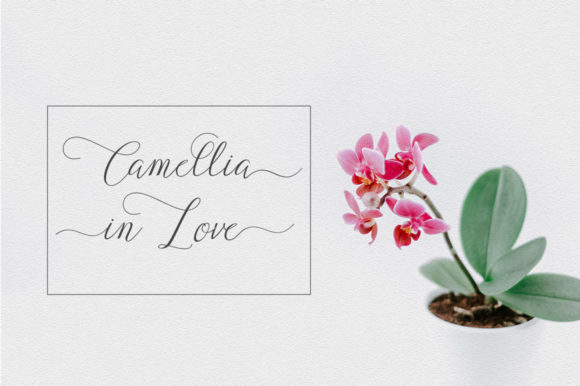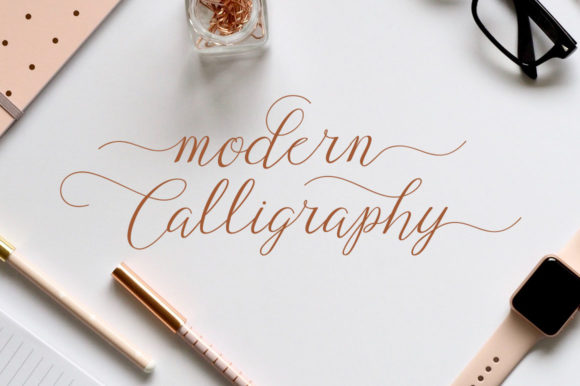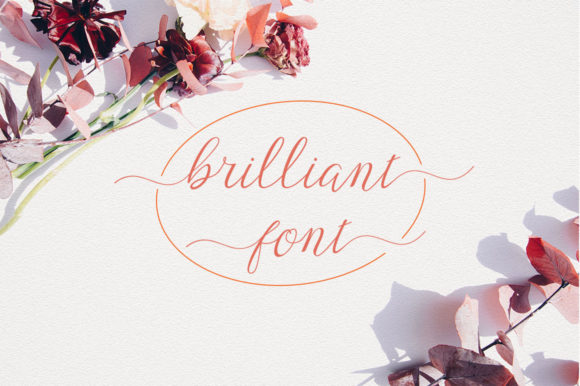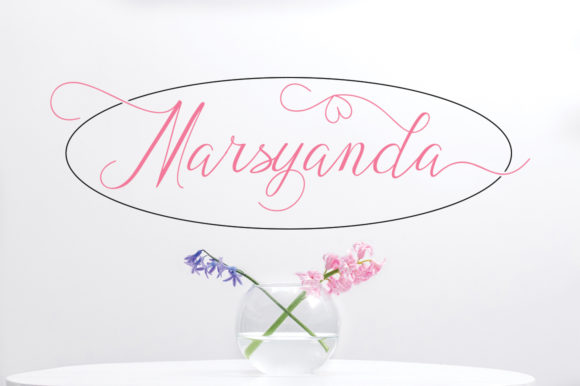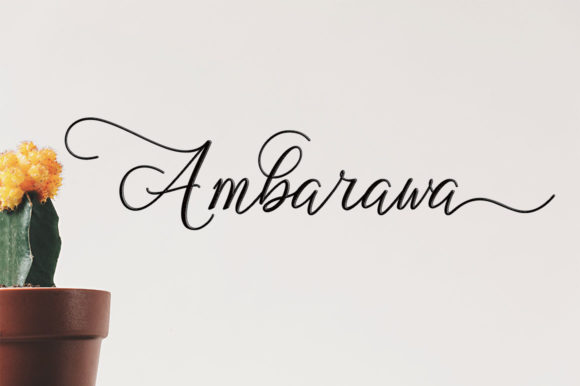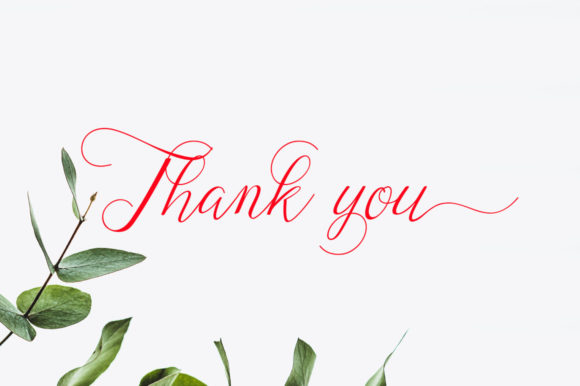
Discover the Charm of Brigadil Font: A Handwritten Masterpiece
Are you a designer or crafter looking for a unique and captivating font to elevate your creative projects? Look no further than Brigadil Font, a stunning and breathtaking handwritten font that exudes romantic charm. In this article, we’ll dive into the world of Brigadil Font, exploring its features, benefits, and uses, and why it’s a must-have for any creative enthusiast.
The Story Behind Brigadil Font
Brigadil Font is a carefully crafted handwritten font, designed to capture the essence of elegance and sophistication. Its unique touch sets it apart from other fonts, making it perfect for projects that require a personal and distinctive feel. Whether you’re working on a branding project, crafting a beautiful wedding invitation, or creating a captivating social media post, Brigadil Font is sure to make a lasting impression.
Key Features of Brigadil Font
- Handwritten with love: Brigadil Font is meticulously handwritten, giving it a personal and organic feel that’s hard to replicate with generic fonts.
- Unique touch: The font’s distinctive style sets it apart from other handwritten fonts, making it perfect for designers and crafters who want to stand out.
- Romantic charm: Brigadil Font exudes a sense of romance and elegance, making it ideal for projects that require a touch of sophistication.
- Versatile: This font can be used for a wide range of projects, from digital designs to print materials, and everything in between.
Benefits of Using Brigadil Font
So, why should you choose Brigadil Font for your next project? Here are just a few benefits of using this stunning font:
- Adds a personal touch: Brigadil Font’s handwritten style gives your projects a personal and human touch, setting them apart from generic designs.
- Enhances creativity: The font’s unique style and romantic charm can inspire creativity and help you think outside the box.
- Perfect for branding: Brigadil Font can help you establish a distinctive brand identity that resonates with your audience.
Uses of Brigadil Font
Brigadil Font is a versatile font that can be used for a wide range of projects, including:
- Wedding invitations and stationery: The font’s romantic charm makes it perfect for wedding-related projects.
- Branding and packaging: Brigadil Font can help you create a distinctive brand identity that stands out.
- Social media graphics: The font’s unique style makes it ideal for creating captivating social media graphics.
- Digital designs: Brigadil Font can be used for a variety of digital designs, from website headers to email newsletters.
In conclusion, Brigadil Font is a stunning and breathtaking handwritten font that offers a unique touch and romantic charm. Its versatility, ease of use, and range of applications make it a must-have for designers and crafters. Whether you’re looking to add a personal touch to your projects or establish a distinctive brand identity, Brigadil Font is the perfect choice. So, fall in love with Brigadil Font and take your creative projects to the next level!